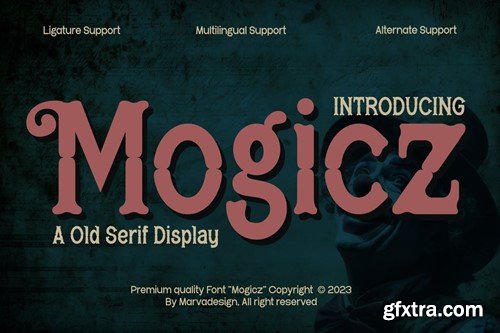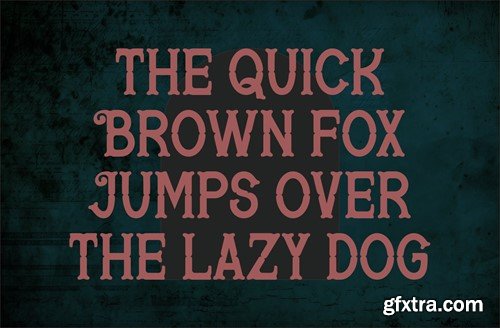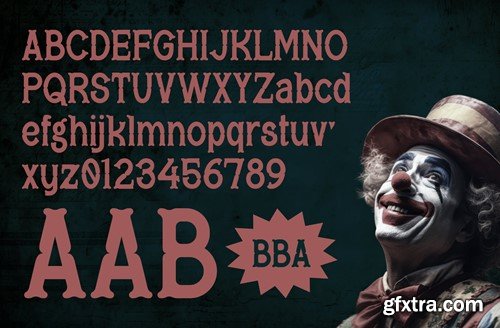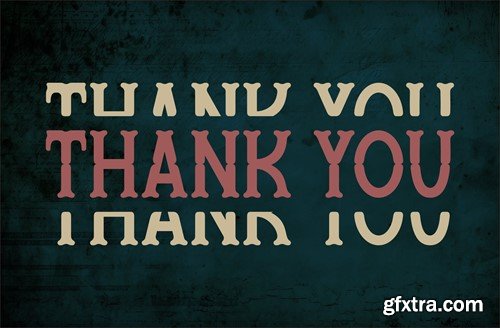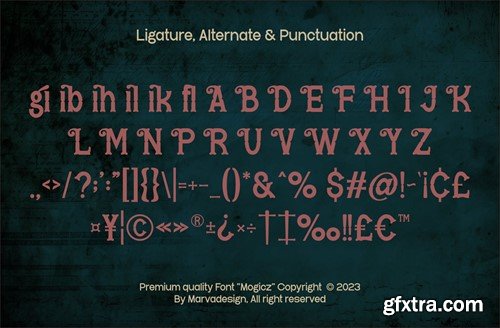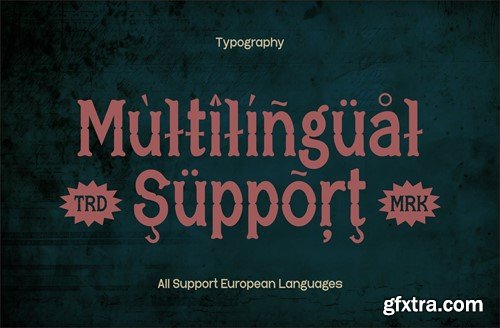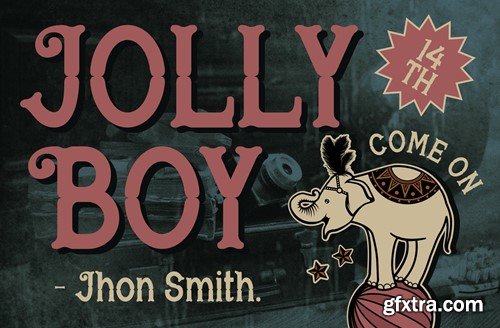
Mogicz - Old Serif Display Font S2ZD49Y
Mogicz - Old Serif Display Font
Introducing our new product Mogicz Font - Old Serif Display Font authentic display font. The font is suitable for any branding project like logo, Template Design, Product and many more. outstanding in a wide range of contexts.
• Uppercase
• Lowercase
• Multilingual
• Ligature
• Alternate